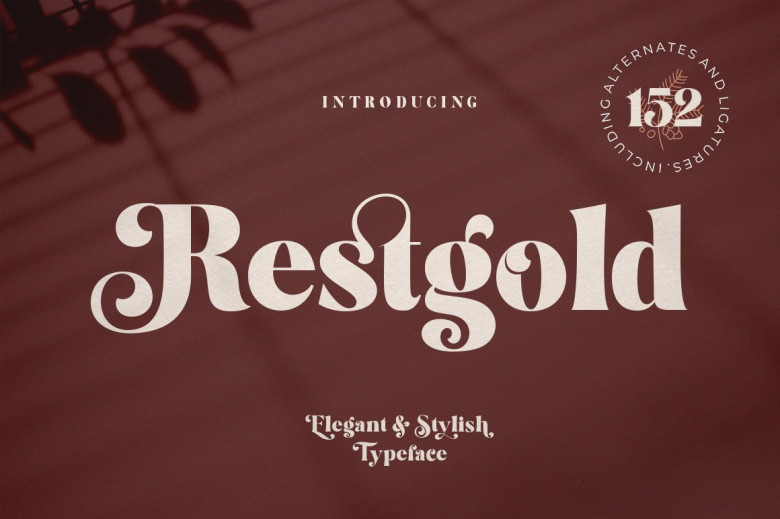
Restgold Font
Restgold is a serif font with high contrast designed to produce expressive, elegant, and distinctive characters. As a complete system it can be utilized for branding purposes, logo design projects, wedding decorations and advertisements – among others.
Restgold is an elegant serif font ideal for editorial and branding designs, featuring swash, over 350 characters and 16 ligatures to offer more stylized options.
Restgold Serif Font